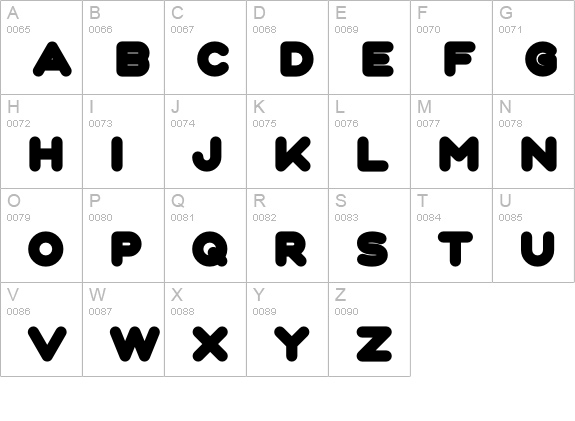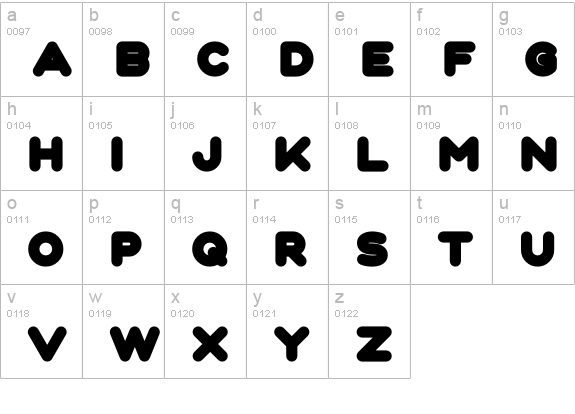
Fun City Level 4 Basic font is a playful and vibrant typeface that exudes a sense of fun and excitement. With its bold and dynamic design, this font is perfect for adding a touch of whimsy to your projects. The cheerful and energetic style of Fun City Level 4 Basic font makes it ideal for a variety of design applications, from posters and flyers to packaging and branding. This font is freely available to download at FontsMarket.com, making it easy for you to add a pop of personality to your designs without breaking the bank. Whether you're working on a creative project or looking to spice up your marketing materials, Fun City Level 4 Basic font is sure to bring a sense of joy and playfulness to your work. Download it today and let your imagination run wild!